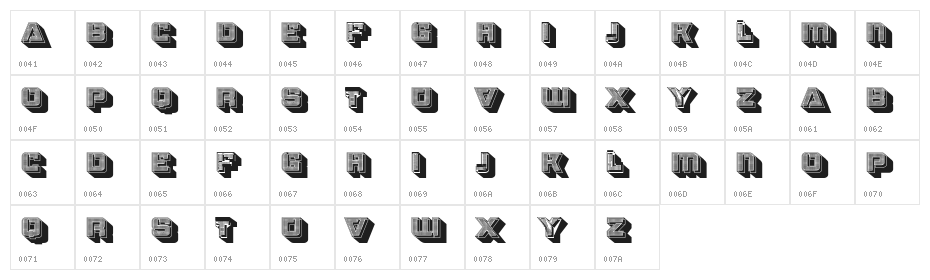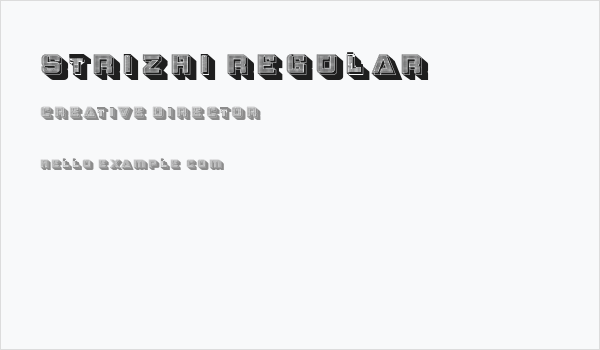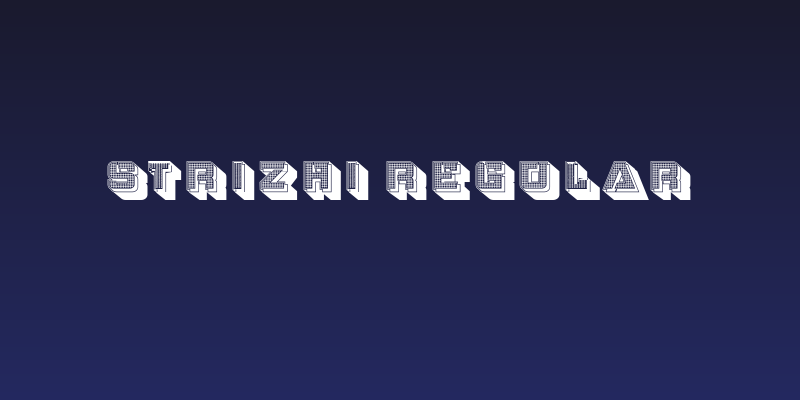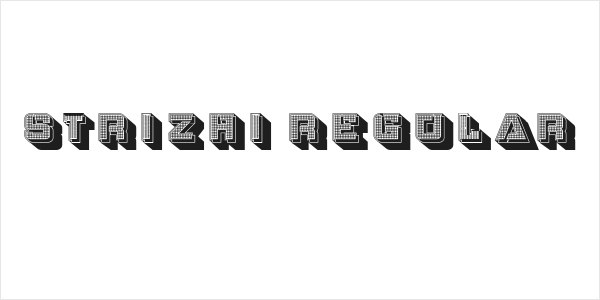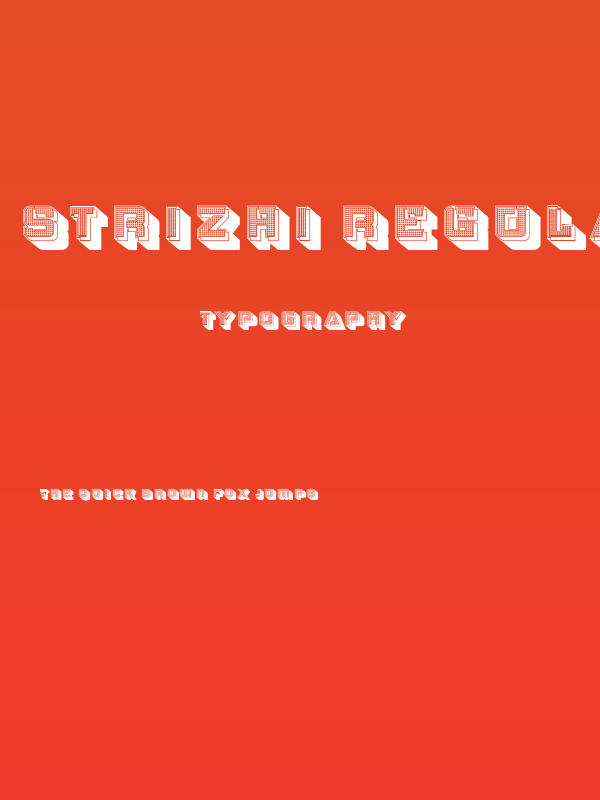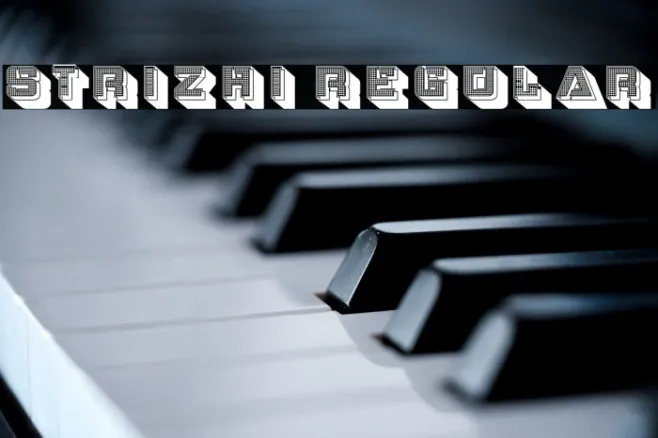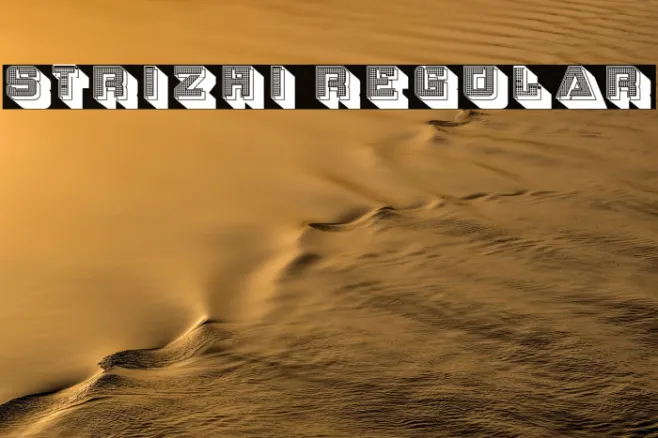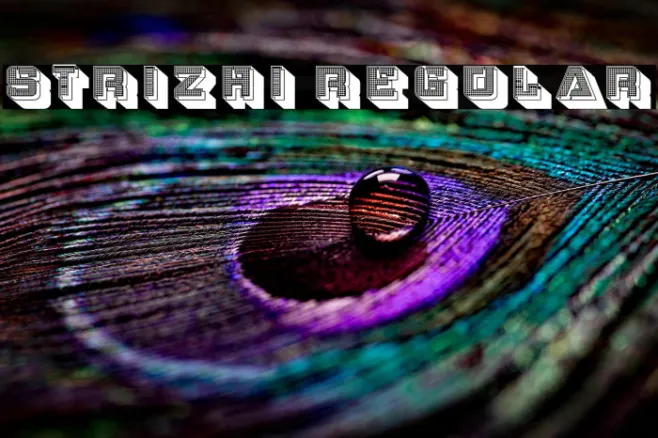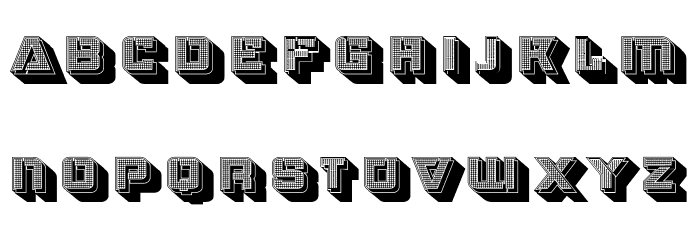
Strizhi Regular Font
Strizhi Regular Description
This font features a bold, three-dimensional design with a distinct shadow effect, creating a sense of depth and dynamism. The characters are constructed with a geometric precision, incorporating a dotted pattern within each letter that adds texture and visual interest. The overall style is reminiscent of vintage signage, making it both eye-catching and nostalgic. The uppercase letters are particularly striking, with sharp angles and clean lines that enhance their bold appearance. This font is ideal for projects that require a strong visual impact and a touch of retro flair.